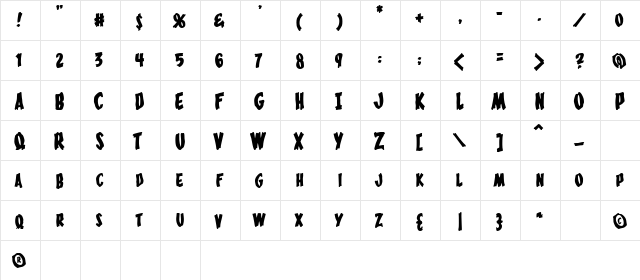
Bucket O Blood Regular
Design Context for Bucket O Blood Typeface
Bucket O Blood leans into the macabre with letterforms designed to disturb and intrigue in equal measure.
Perfect for anything that needs to unsettle — game titles, horror branding, and macabre invitations.
Font Pairing: Pair with a clean neutral sans-serif for body copy to let Bucket O Blood's character lead without overwhelming the composition.
Pro Tip: Use Bucket O Blood at larger display sizes for maximum impact. Consider generous tracking to let the disturbing character of each letterform breathe.